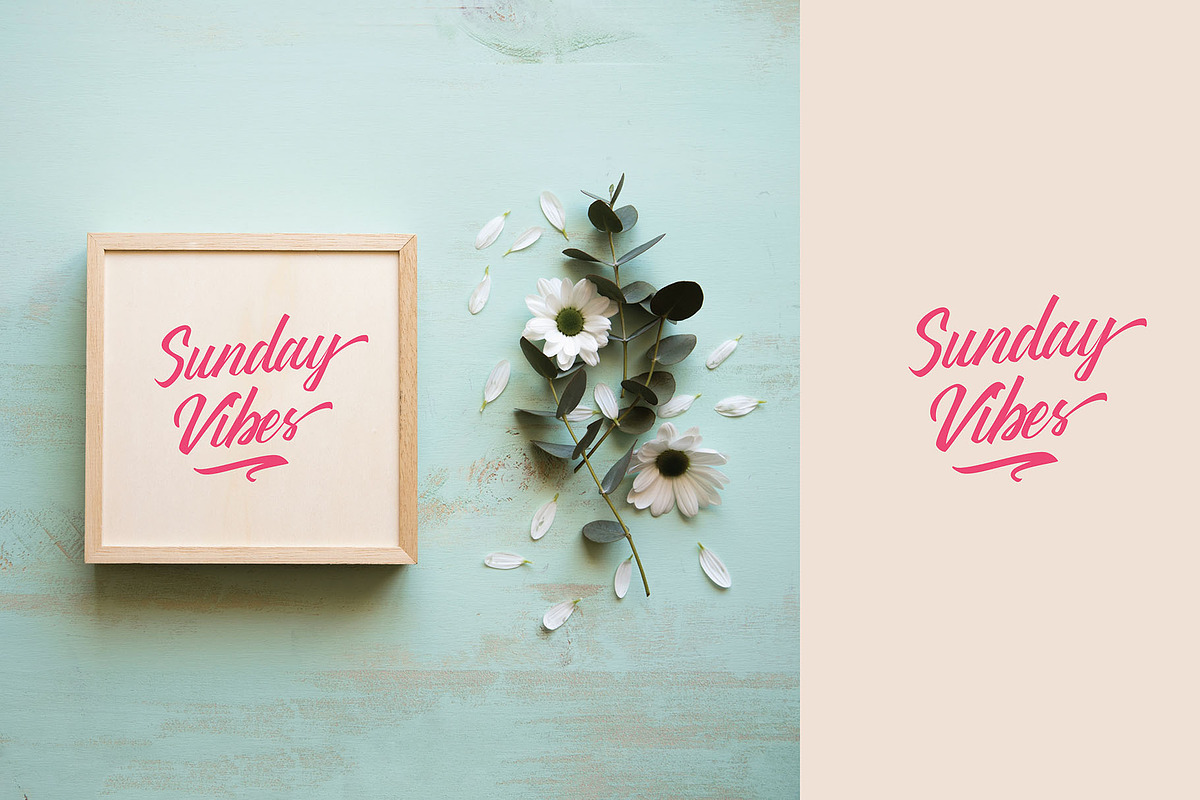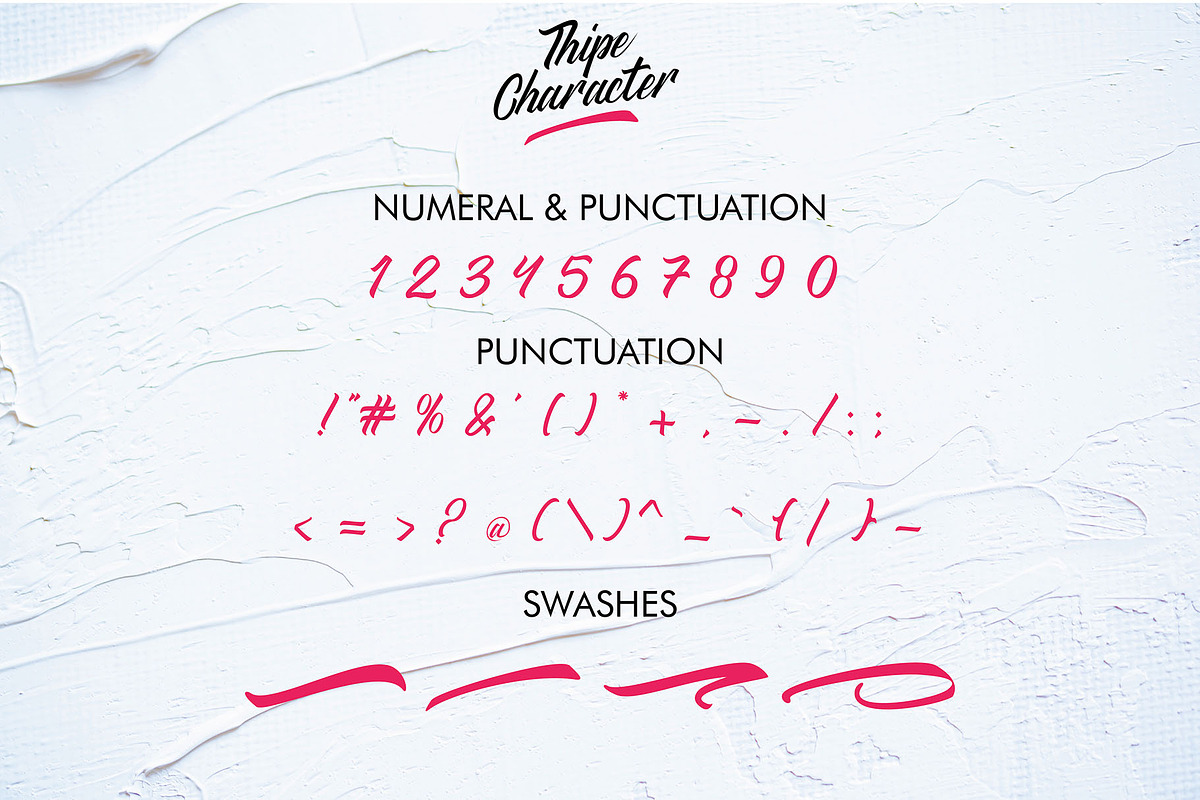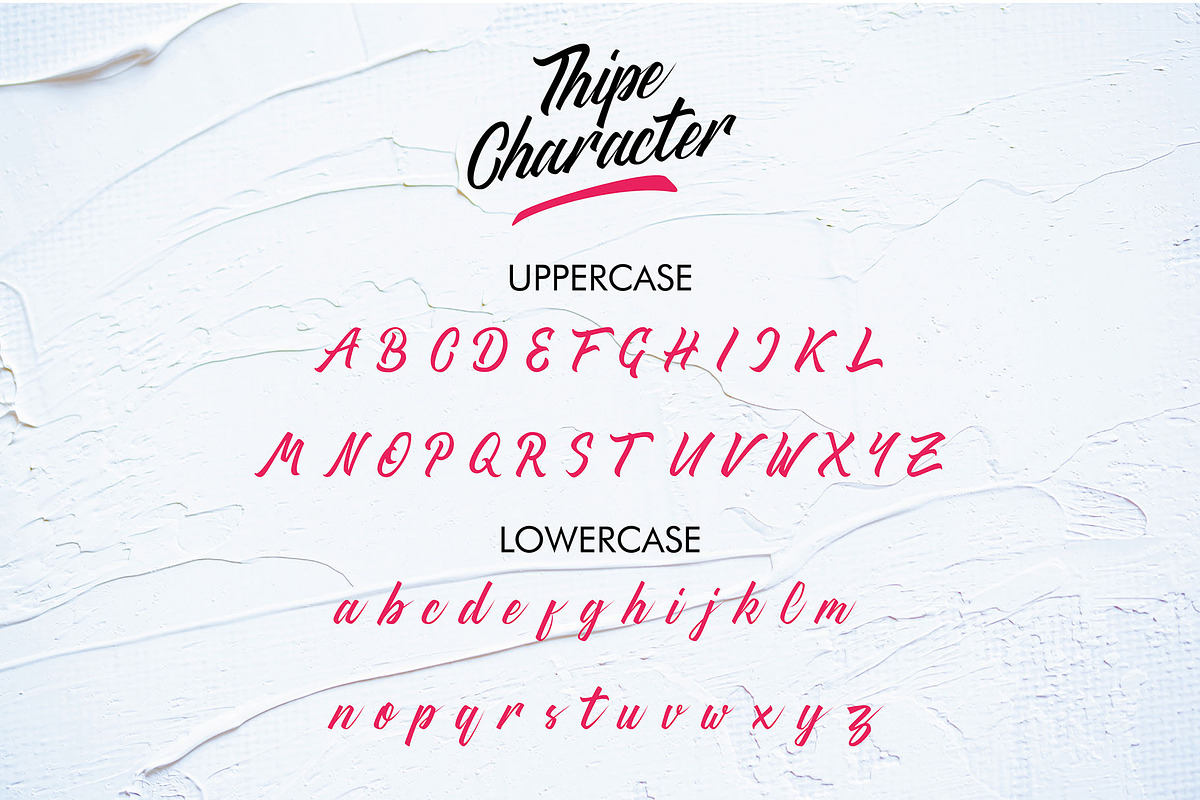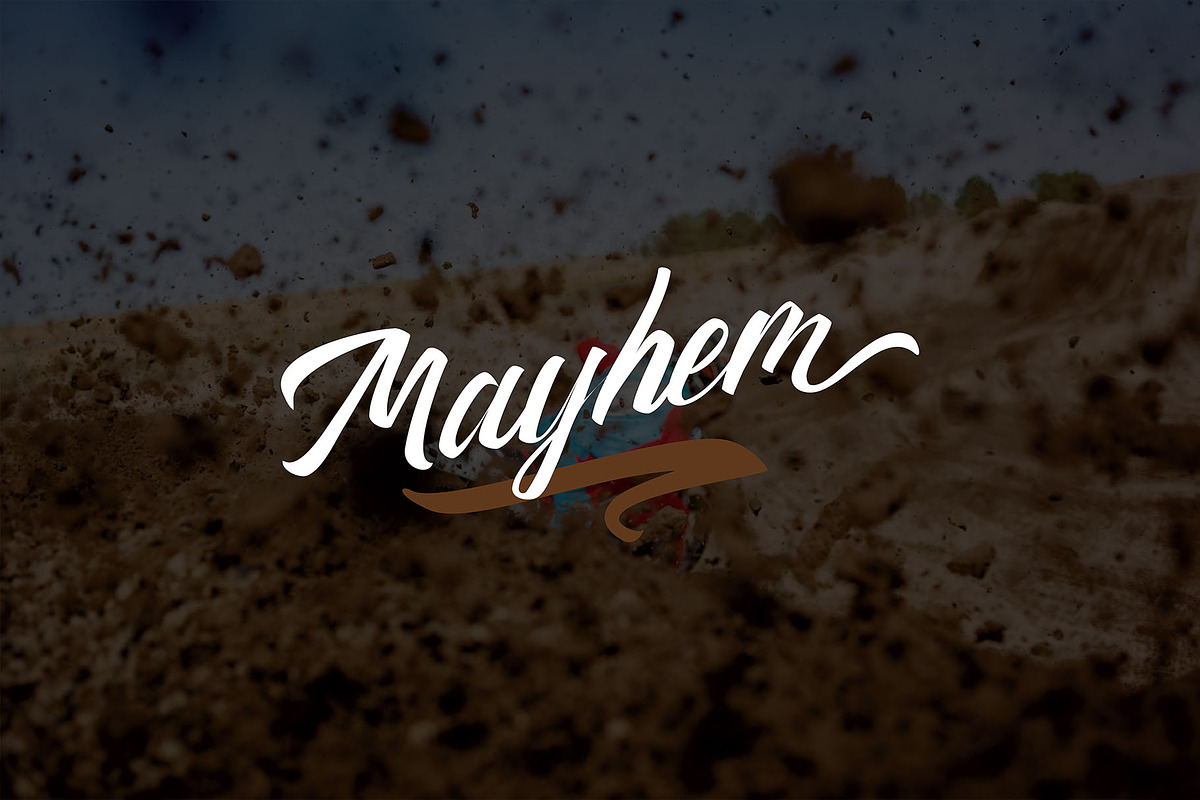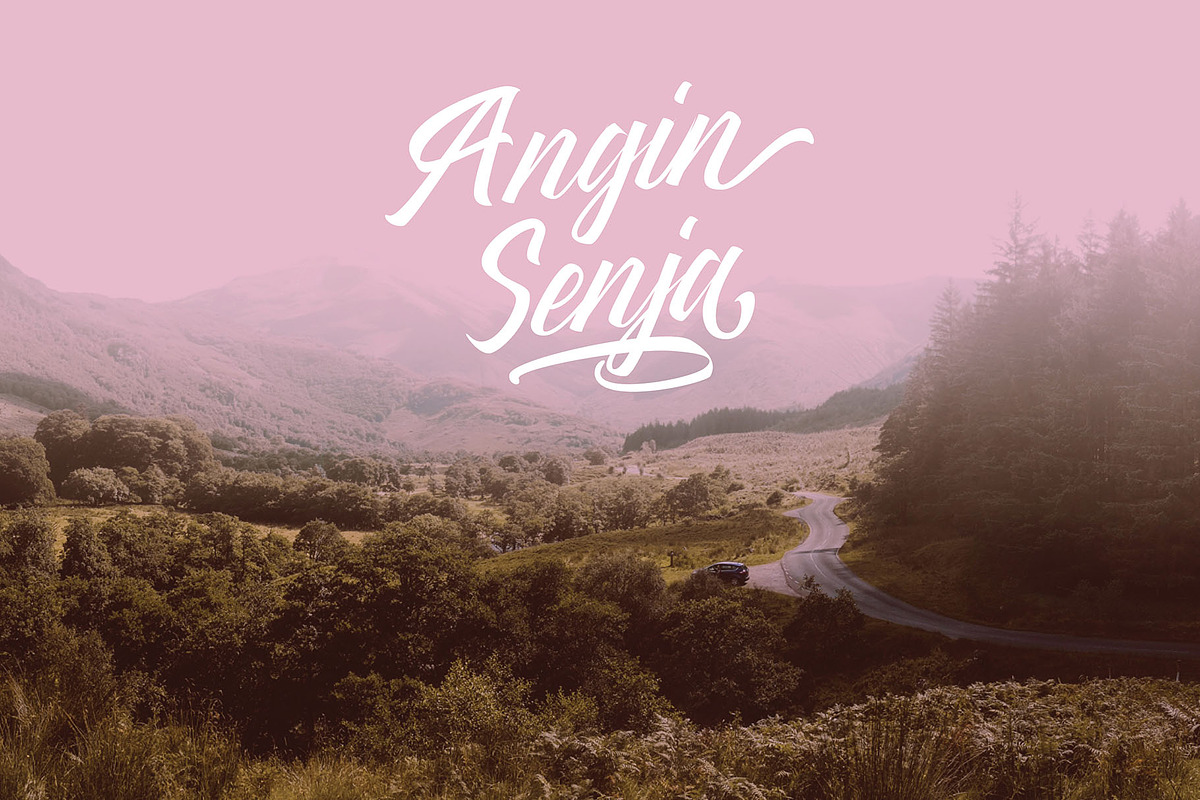
Thipe Typeface
Introducing, Thipe Typeface. Thipe is Script Calligraphy Typeface handwritten with elegant style. this font are great for various design like Logo, Product, Stationary, clothing brand and much more. Thipe have more Glyph for explore your design
Thipe Typeface Features : -Many Alternate Glyphs Upercase and Lowercase -Swashes -Ligature
Thipe Typeface by Youthlabs Studio fits naturally into Branding, posters, packaging, typography.